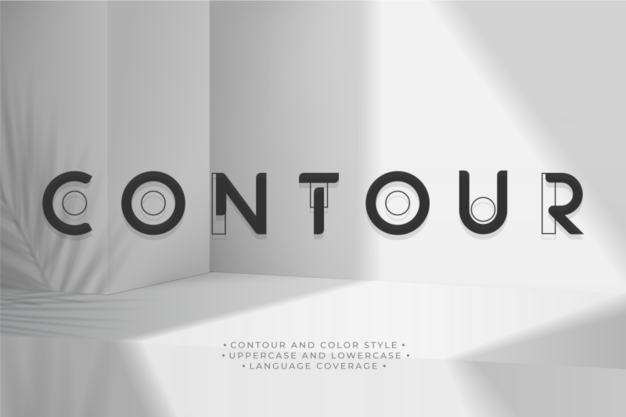
Contour
Contour Font
This unique Contour font is ahead of its time. Its design alternates between colored compact letters and empty transparent disconnected shapes. I'ts a multipurpose typeface, which may be used for big banners, posters, and even tech or real estate logos. It includes uppercase and lowercase letters, multilanguage characters and punctuation marks. Download and install it in a flash with Freepik!
Countour Black (400)
Countour Color (400)